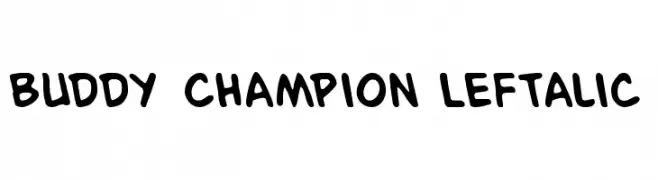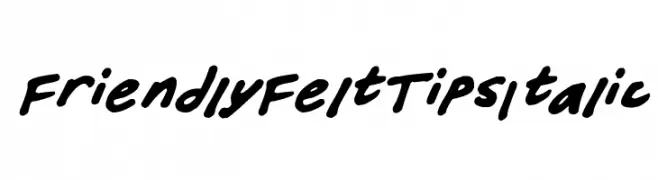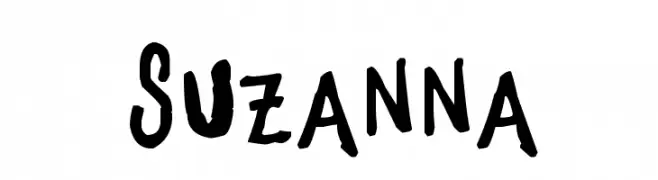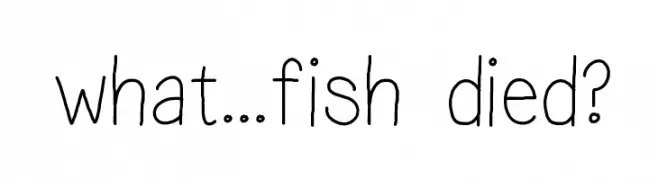
A playful, handwritten font with a casual and friendly appearance.
A playful, handwritten font with bold, irregular strokes and a casual style.
A casual, handwritten font with a playful and informal style.
A playful, handwritten-style font with bold, smooth strokes and a casual vibe.
A playful, handwritten font with a casual and whimsical style.
A playful, hand-drawn font with rounded, consistent strokes and a casual style.
A playful, handwritten font with a casual and friendly style.
A bold, handwritten font with a playful and casual style.